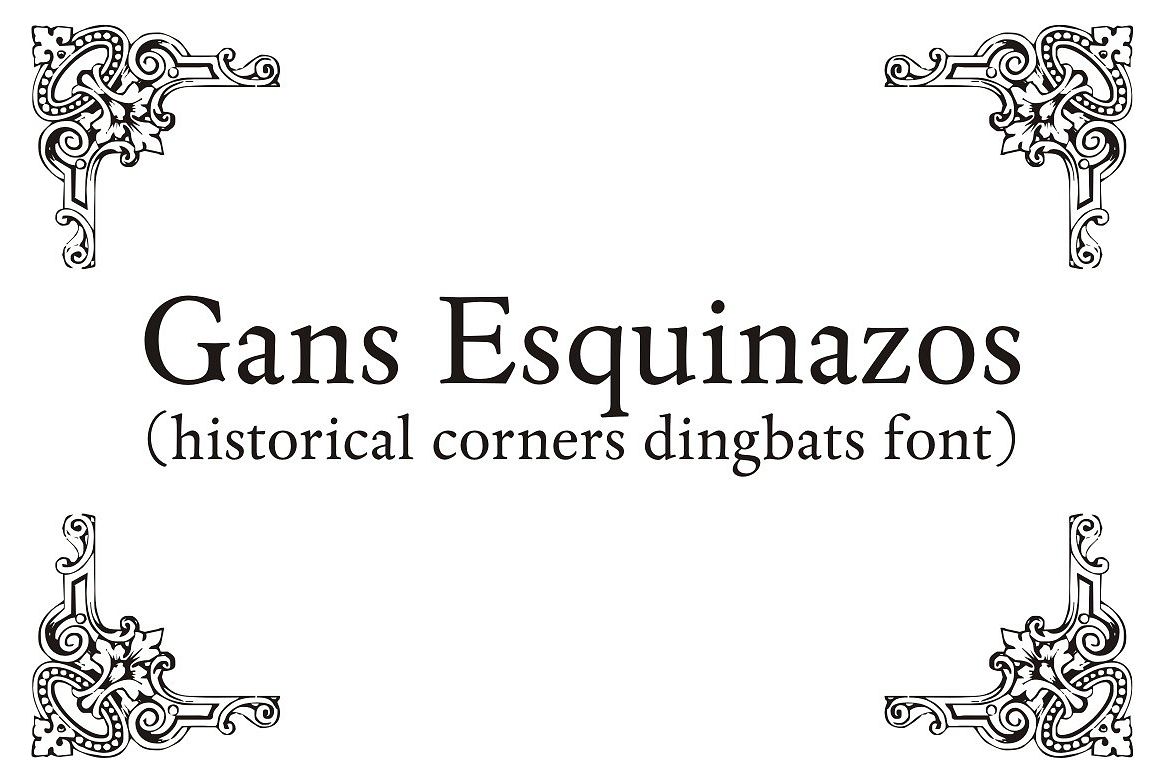
Gans Esquinazos
GansEsquinazos
A decorative font design of many borders, ornaments and frame like illustrations. A collection of 40 original gliphs researched in the rare catalogue from Richard Gans extinct typefoundry. A great set of type dingbats.